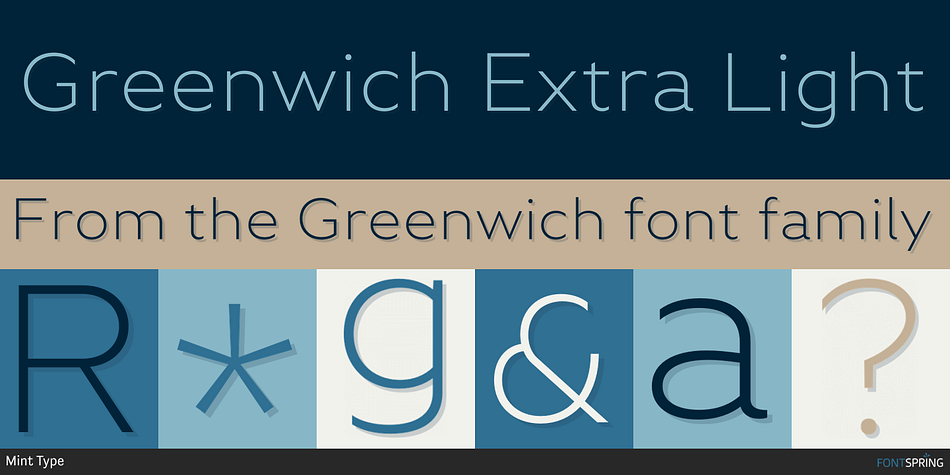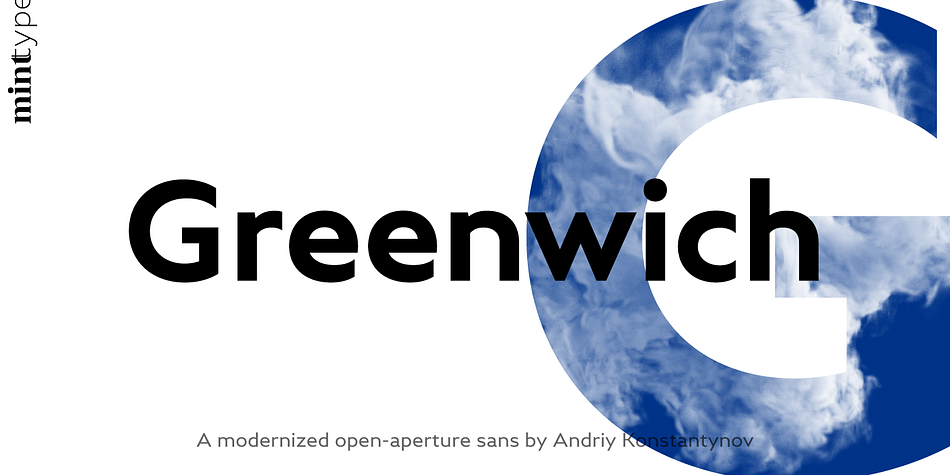
Greenwich Extra Light
Designed by Andriy Konstantynov, Greenwich is a sans serif font family. This typeface has eighteen styles and was published by Mint Type.
Greenwich is a modern-looking humanized sans-serif typeface with open aperture, inspired by the works of English typographers in 1910s–1920s. It comes in 9 weights accompanied with matching mixed-style italics.
Containing over 950 glyphs, Greenwich offers extensive language support including Cyrillic, multiple Opentype features and numerous alternate glyphs to choose from.
It works great in long paragraph texts, but is expressive enough to be used in headlines and branding applications as well.